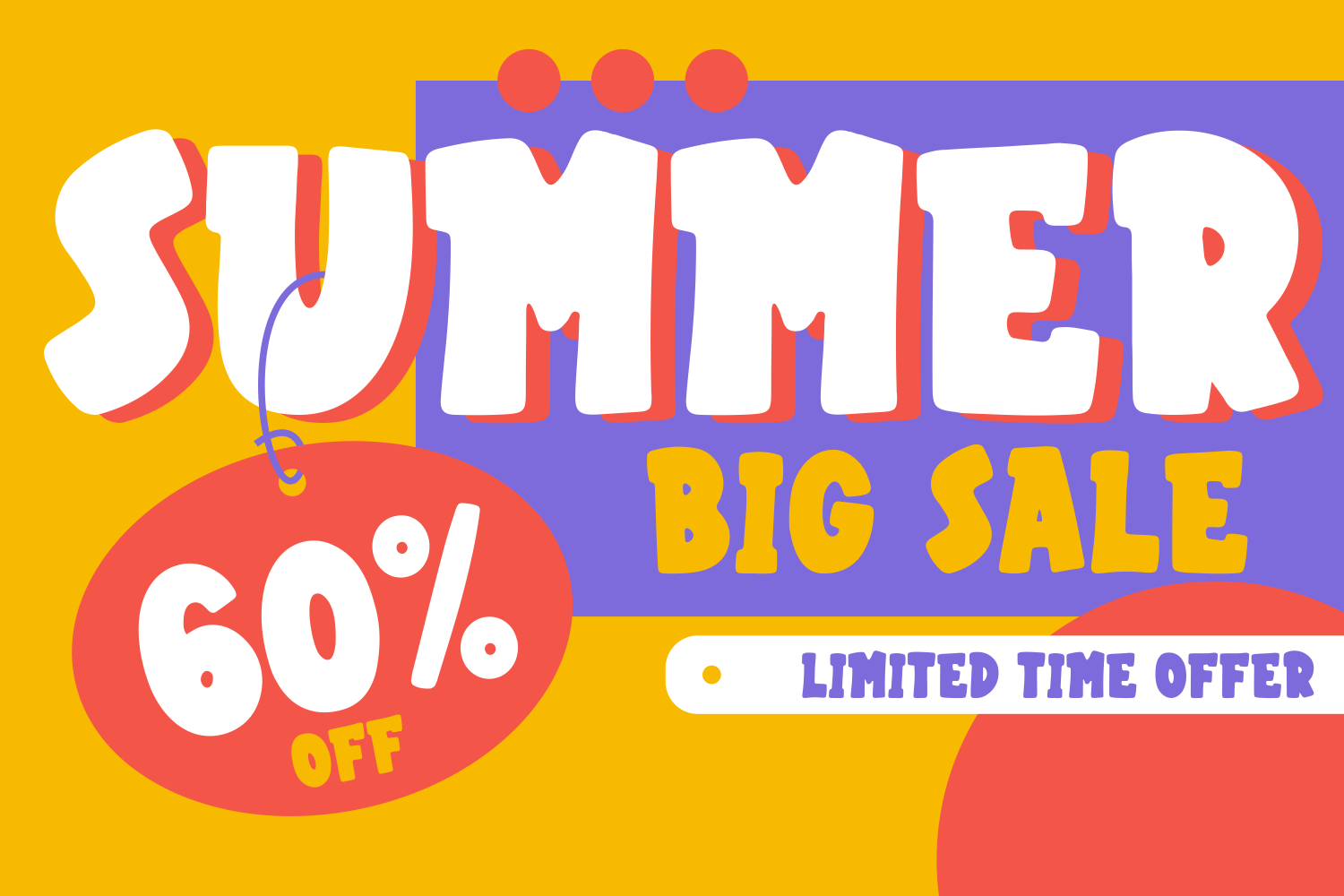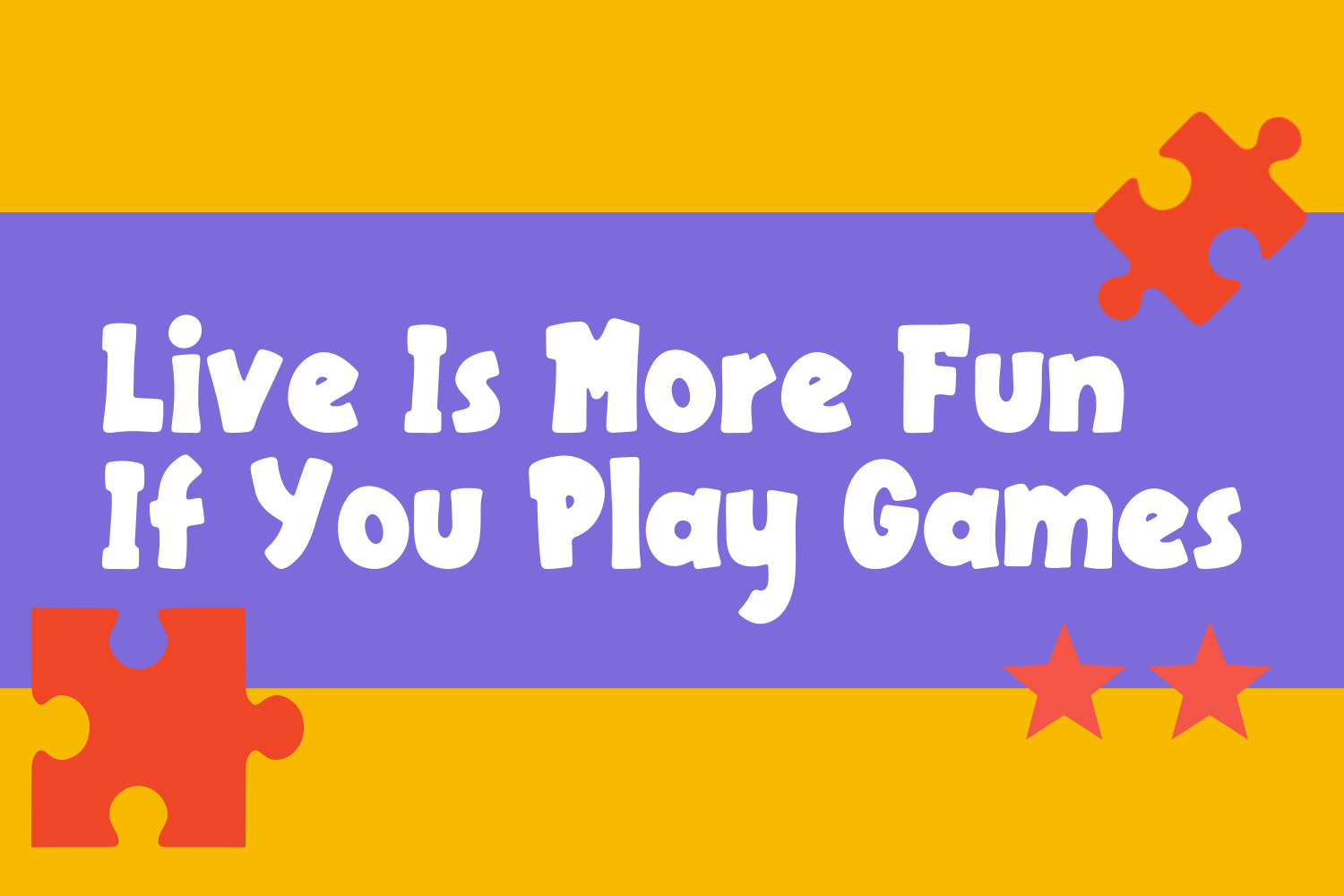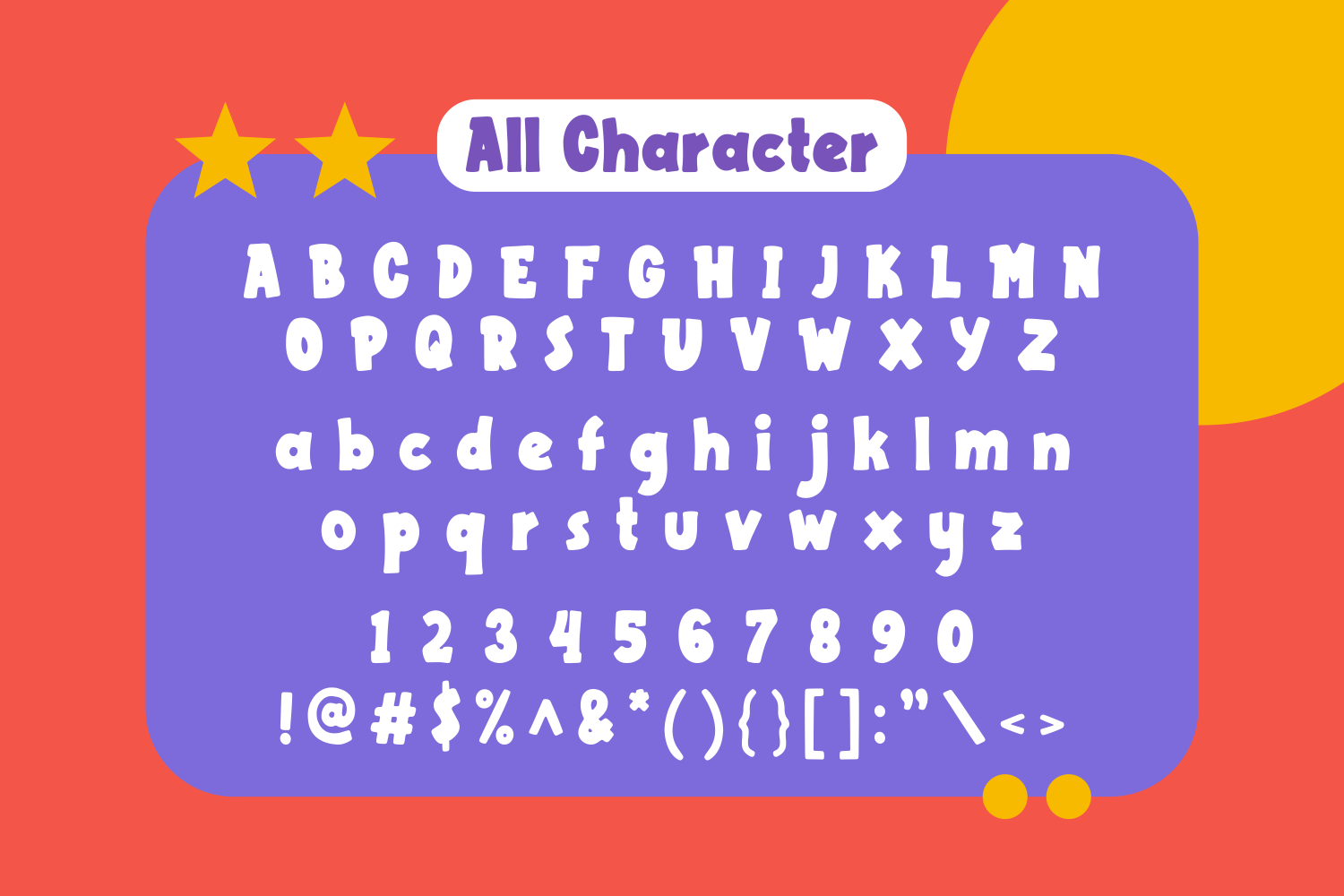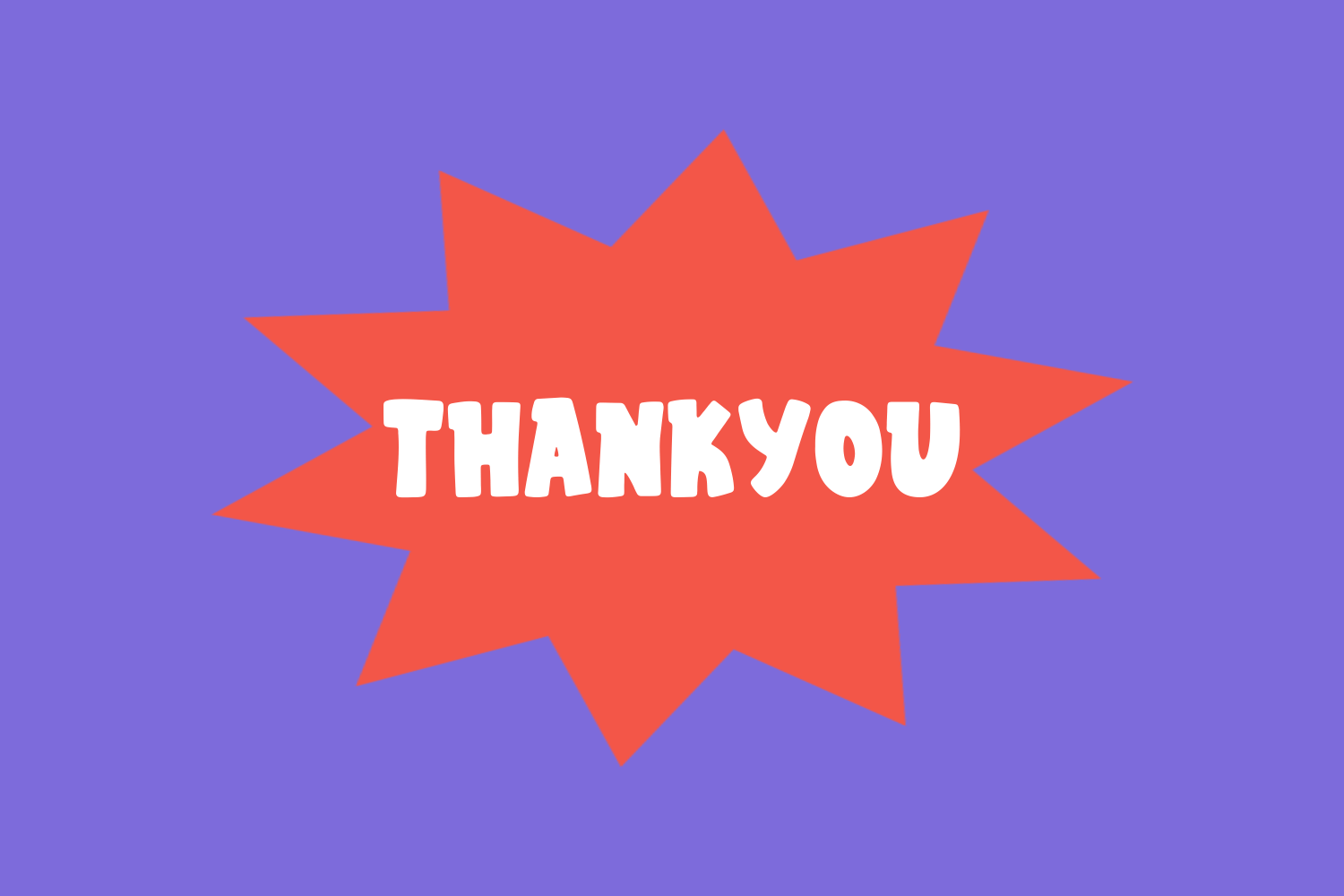
Meatblock Font
Meatblock Display Font is a modern thick slab serif font, perfectly suitable for your bold and creative projects! It’s suitable for branding projects, magazines, social media, game covers, or to express words above the background.
Forberas Foundry